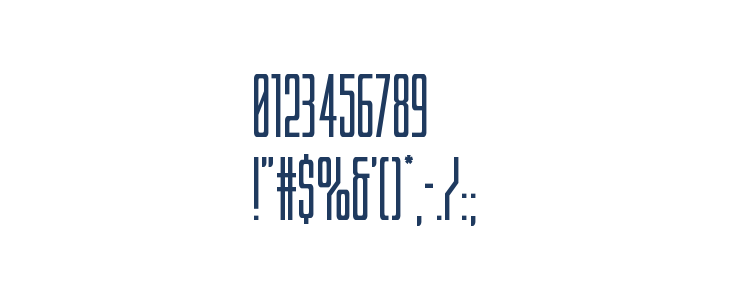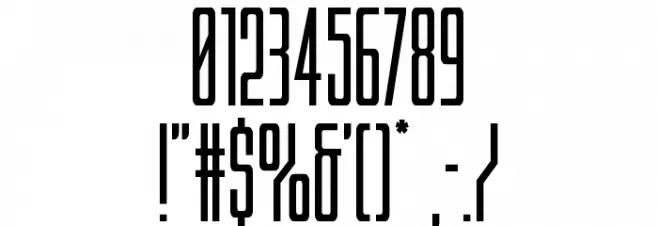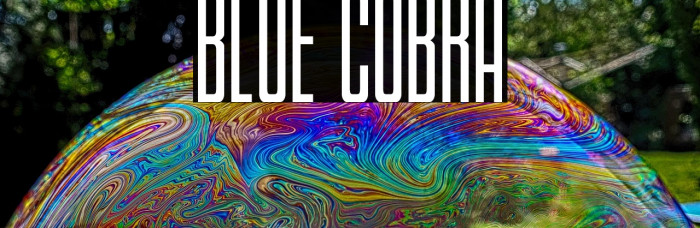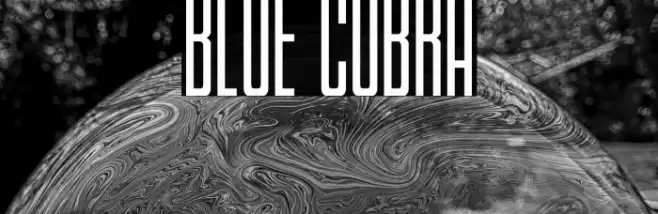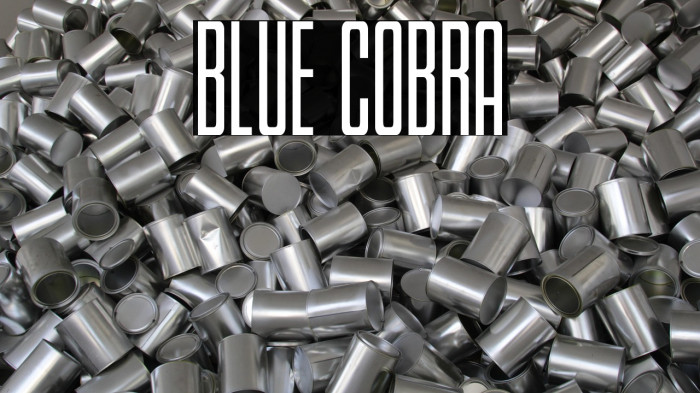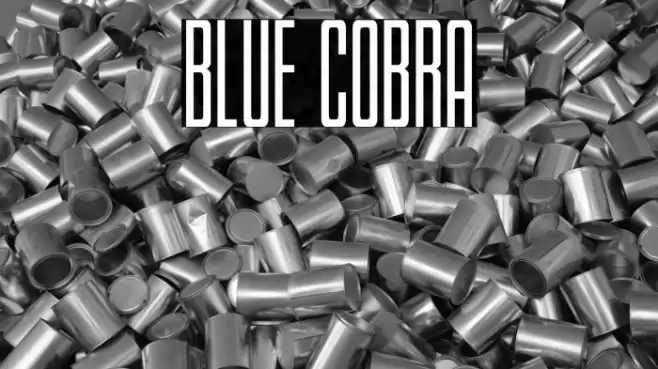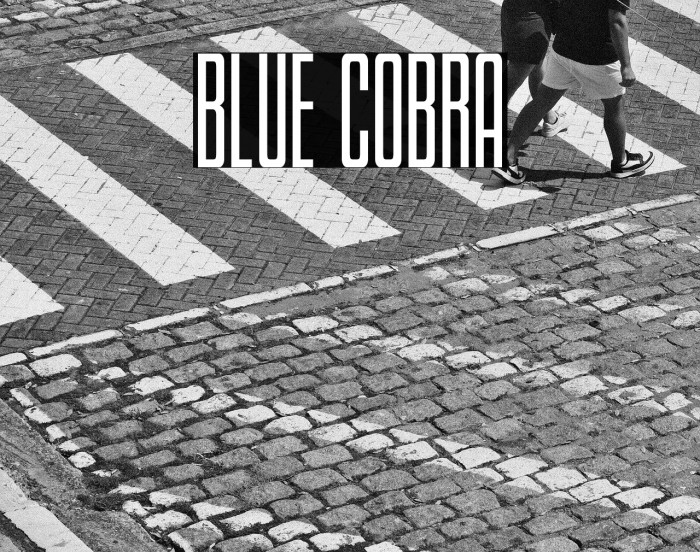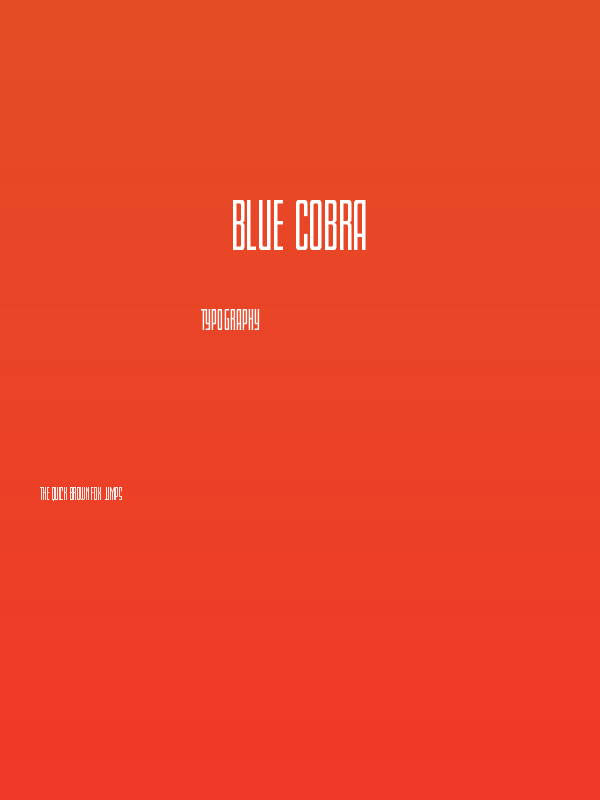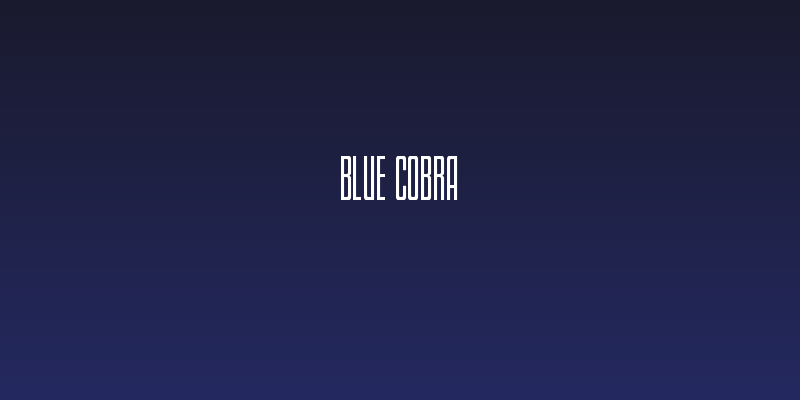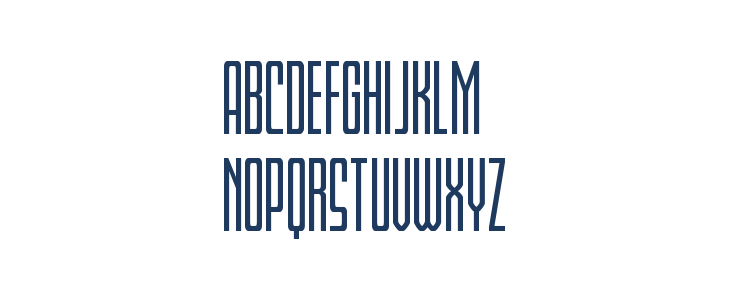
Blue Cobra Font
Blue Cobra Description
This font features a tall, narrow design with a distinctly modern and geometric aesthetic. The characters are elongated with a consistent stroke width, giving it a sleek and streamlined appearance. The uppercase letters are particularly striking, with sharp angles and clean lines that create a sense of precision and order. The numerals and special characters maintain this uniformity, contributing to the font's cohesive look. The overall style is bold and impactful, making it suitable for attention-grabbing headlines or branding projects.
| Proposed Projects | Ideal for use in modern branding, advertising, poster design, and digital media where a bold statement is needed. |